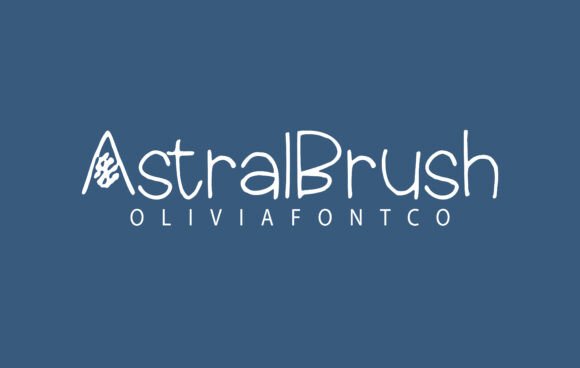
The AstralBrush Font: A Romantic Touch for Your Creative Projects
I’ll never forget the time I was working on a wedding invitation design project, and my client asked for a font that was both elegant and playful. I scoured the internet, tried out countless fonts, but none seemed to fit the bill. That was until I stumbled upon the AstralBrush font. With its romantic touch and authentic handwritten feel, it was love at first sight! In this article, I’ll share my experience with this beautiful font, its features, and how you can make the most of it in your creative projects.
An Honest Review of AstralBrush Font
- ✨ Romantic and elegant feel: AstralBrush font has a unique, handcrafted look that adds a touch of sophistication to any design.
- ✅ Legible and versatile: This font is perfect for both title and body text, making it a great addition to your font library.
- 💕 Perfect for wedding and event designs: The romantic feel of AstralBrush font makes it an ideal choice for wedding invitations, cards, and other event-related designs.
While AstralBrush font is an excellent choice for many designs, there are a few things to keep in mind:
- 🤔 Limited use in formal designs: While the font is elegant, it may not be suitable for very formal designs, such as corporate branding or business reports.
- ⚠️ Requires attention to spacing: As with any handwritten font, you may need to adjust the spacing between letters to achieve the best results.
The Story Behind AstralBrush Font
AstralBrush font was designed by a team of typographers who wanted to create a font that captured the essence of handwritten elegance. Inspired by classic calligraphy and modern handwriting, AstralBrush font is a unique blend of traditional and contemporary styles. The designers aimed to create a font that would be both beautiful and functional, perfect for a wide range of creative projects.
A: AstralBrush font is perfect for designs that require a romantic touch, such as wedding invitations, cards, and event-related designs.
Q: Can I use AstralBrush font for body text?
A: While AstralBrush font is legible, it’s best suited for title text or short paragraphs. For longer body text, consider using a more traditional font for better readability.